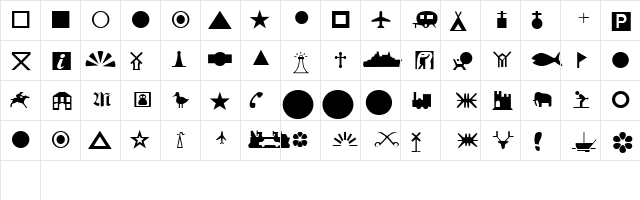
Complete Attica VMAP Symbol 1 Regular glyph index. Displaying only characters natively supported by Attica VMAP Symbol 1 Regular font.
Attica VMAP Symbol 1 is a composed and adaptable typeface that performs quietly and consistently across a wide range of design contexts.